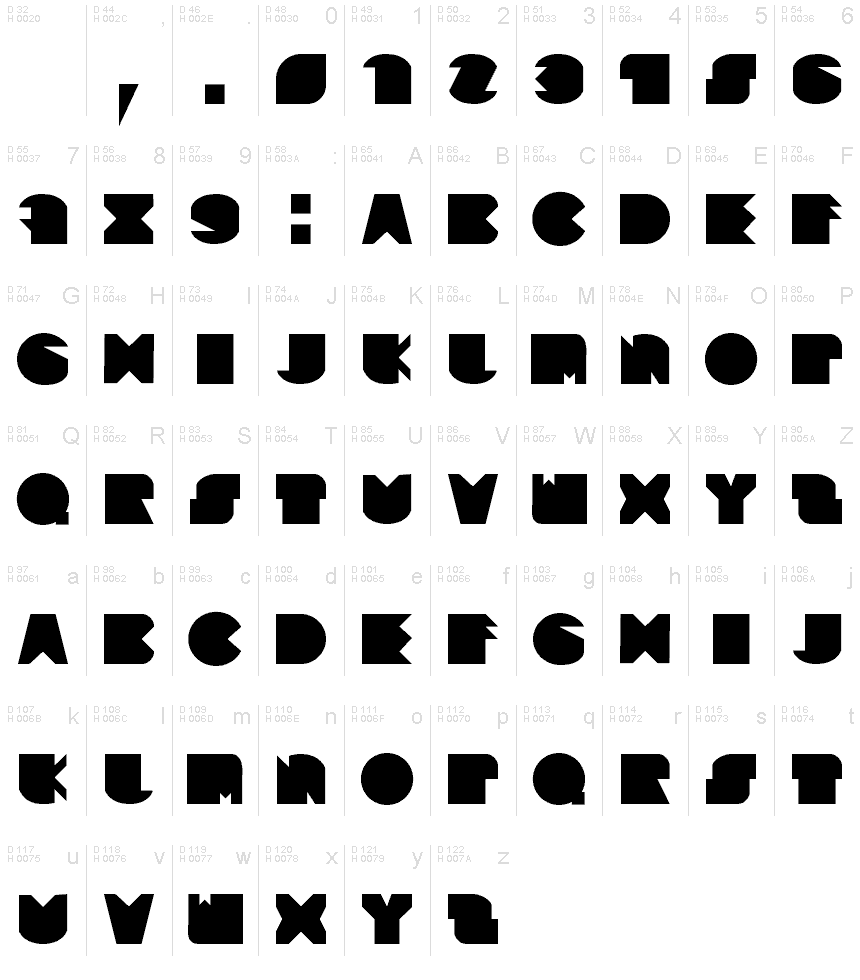
BlooFont
BlooFont by Julian Rojas Villota is a bold and expanded display typeface. This modern display free font uses geometric shapes with futuristic and minimalist attitudes, offering new approaches to experimental design. All original and unique, BlooFont offers something that designers had not seen before nor considered using in their personal projects.
A non-typical display font, BlooFont is suited for album covers, CD covers and labels, movie posters with a futuristic scene or plot, magazine covers, fashion-related books cover designs for pop art magazines or new illustration guides.